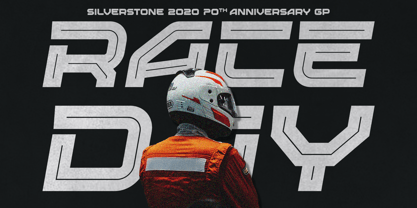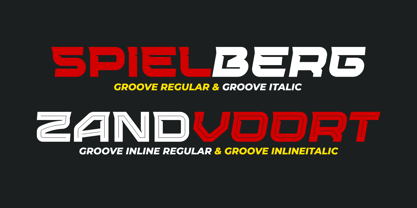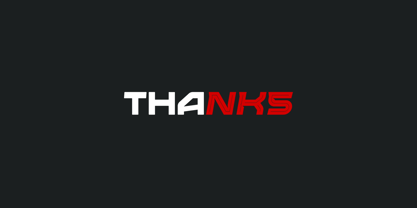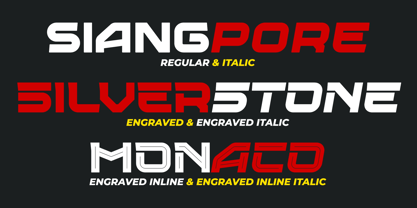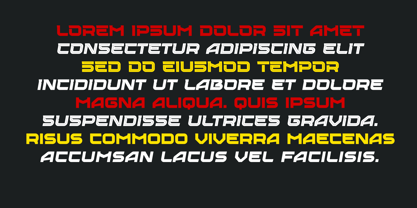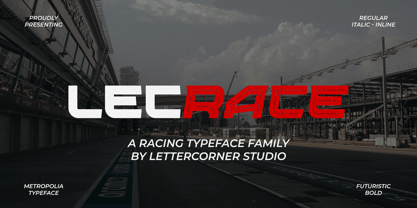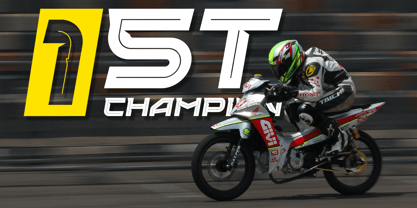
Lecrace
by Mevstory Studio
The Lecrace Font Family was designed by Muhammad Afif Ersya and published by Mevstory Studio. Lecrace contains 10 styles and family package options. More about this family
Lecrace is a bold, high-speed display typeface engineered for maximum visual impact. Inspired by the precision and relentless pace of modern motorsport—particularly the smooth yet aggressive driving style of a new-generation Formula driver—its wide letterforms fuse aerodynamic curves with sharp, decisive cuts, capturing both control and raw speed.
The family is divided into three distinctive sub-families: Base styles for strong, clean headlines and logos; Groove styles with refined inner-line detailing for added depth; and Engraved styles that introduce a carved-line effect for a more dimensional and striking appearance. Each sub-family includes upright, italic, and inline variants — giving you 10 versatile styles to combine, layer, and push creative boundaries.
Perfect for esports branding, racing visuals, gaming identities, futuristic interfaces, posters, and apparel.
Lecrace doesn’t whisper — it attacks every corner.